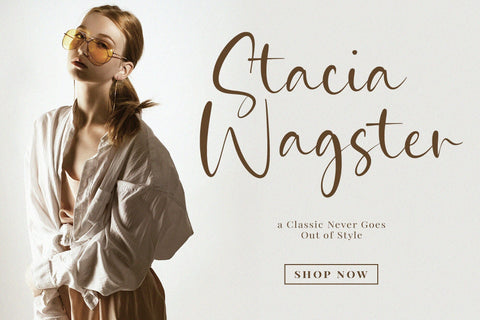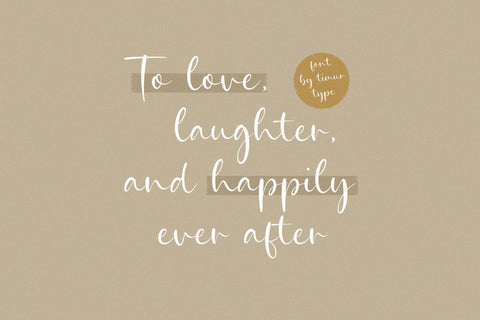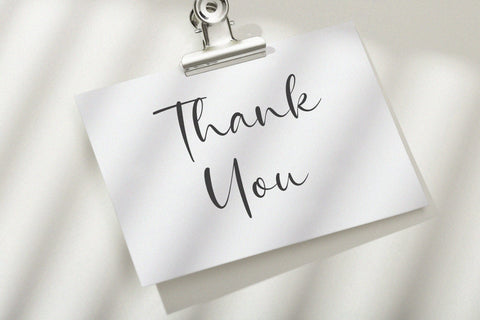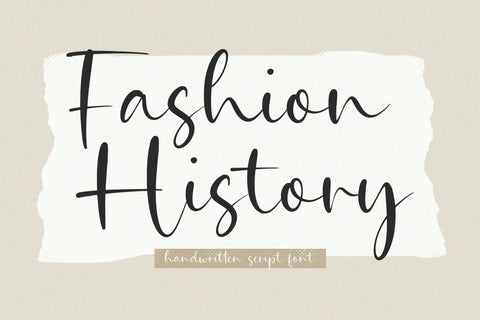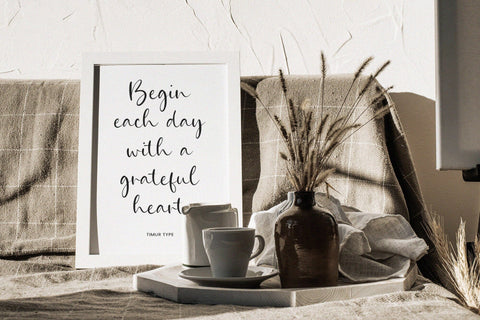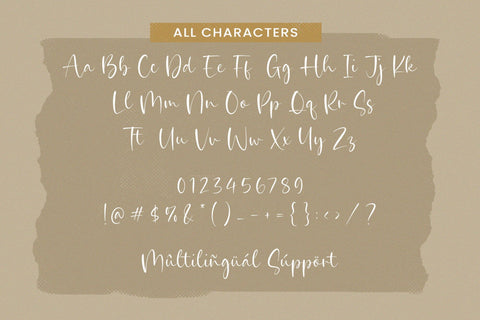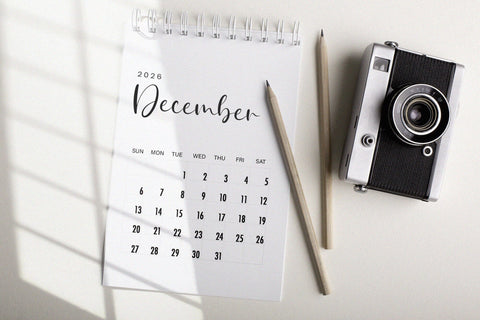
Fashion History - Moderen Font
Proudly Present, Fashion History
Fashion History is a Handwritten Font, which was created with great care and specially created for you .
Fashion History is best for:
- logos, branding, & Signatures.
- Flyers, Album cover, Magazine, & Advertisements.
- Website design , design blogs, & fashion.
- Quote graphics for social media.
- and also it works great for other projects.
- Character Set
- Numerals and Punctuation (OpenType Standard)
- Accents (Multilingual characters)
-Ligature